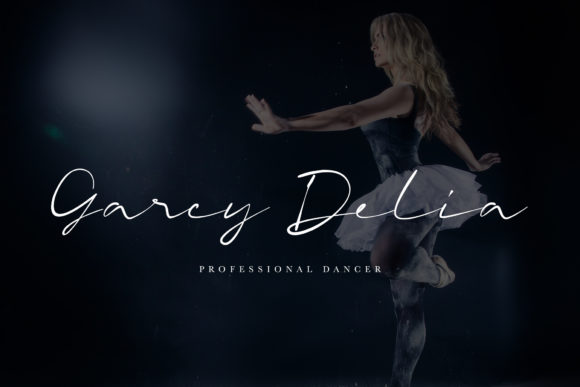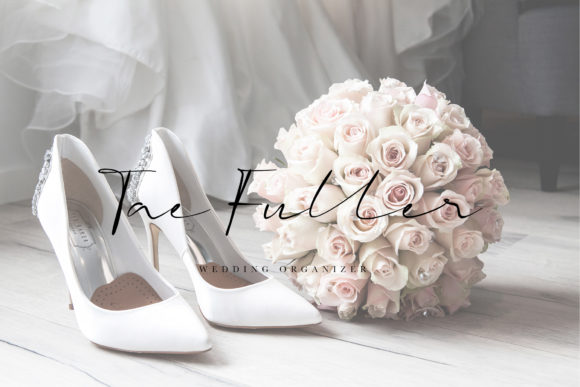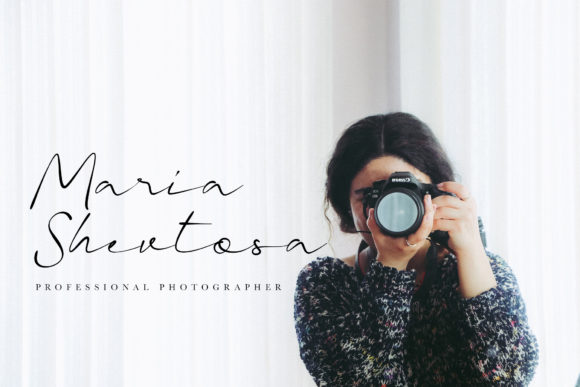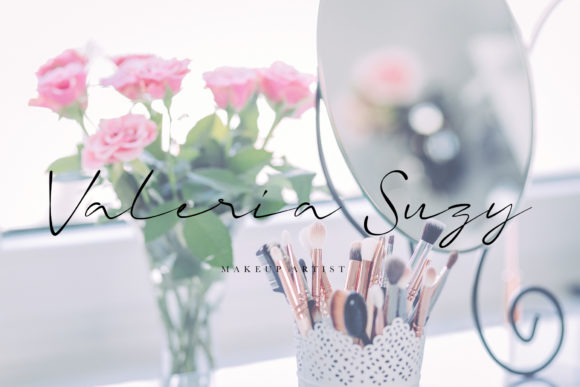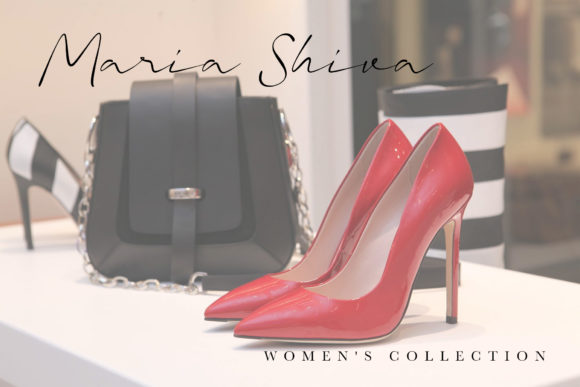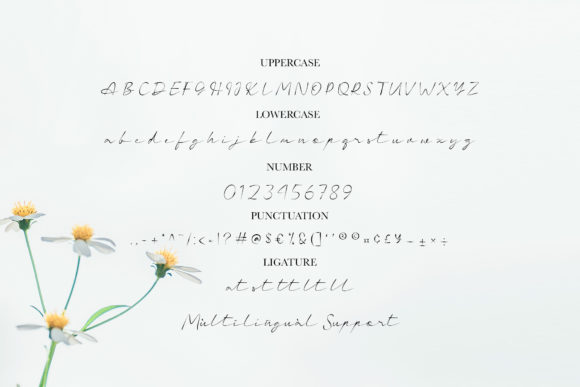
Discover the Unique Charm of Charlotte Font: Elevate Your Designs with a Casual Script Font
Are you tired of using the same old fonts in your designs? Look no further than Charlotte Font, a casual script font that is sure to turn any design idea into a true standout. With its unique charm and effortless elegance, Charlotte Font is the perfect choice for designers and crafters looking to add a touch of personality to their work.
What is Charlotte Font?
Charlotte Font is a beautifully crafted script font that exudes a sense of casual sophistication. Its flowing lines and delicate curves give it a distinctly feminine touch, making it perfect for designs that require a personal and approachable feel. Whether you’re working on a branding project, a wedding invitation, or a craft project, Charlotte Font is sure to add a touch of warmth and personality to your design.
The Unique Features of Charlotte Font
So, what sets Charlotte Font apart from other script fonts on the market? Here are just a few of its unique features:
- Effortless elegance: Charlotte Font has a relaxed, casual feel that makes it perfect for designs that require a personal touch.
- Unique charm: The font’s delicate curves and flowing lines give it a distinctly feminine touch that is sure to capture the attention of your audience.
- Highly legible: Despite its elegant appearance, Charlotte Font is highly legible, making it perfect for use in a variety of design applications.
- Versatile: Charlotte Font can be used in a wide range of design projects, from branding and advertising to wedding invitations and craft projects.
How to Use Charlotte Font in Your Designs
Charlotte Font is incredibly easy to use, and can be incorporated into a wide range of design projects. Here are a few ideas to get you started:
- Branding and advertising: Use Charlotte Font to add a touch of personality to your brand’s marketing materials, such as business cards, brochures, and social media graphics.
- Wedding invitations: Charlotte Font is perfect for wedding invitations, adding a touch of romance and elegance to your special day.
- Craft projects: Use Charlotte Font to add a personal touch to your craft projects, such as handmade cards, gift tags, and scrapbook pages.
- Digital designs: Charlotte Font can also be used in digital designs, such as website headers, social media graphics, and email newsletters.
Tips for Getting the Most Out of Charlotte Font
Here are a few tips for getting the most out of Charlotte Font:
- Experiment with different sizes and colors: Charlotte Font looks great in a variety of sizes and colors, so don’t be afraid to experiment and find the combination that works best for your design.
- Pair it with other fonts: Charlotte Font pairs well with a variety of other fonts, so try combining it with a bold font for headings or a clean font for body text.
- Use it consistently: To get the most out of Charlotte Font, use it consistently throughout your design. This will help to create a cohesive look and feel that ties your design together.
Charlotte Font is a casual script font that is sure to turn any design idea into a true standout. With its unique charm and effortless elegance, it’s the perfect choice for designers and crafters looking to add a touch of personality to their work. Whether you’re working on a branding project, a wedding invitation, or a craft project, Charlotte Font is sure to inspire your creativity and help you to create something truly special.